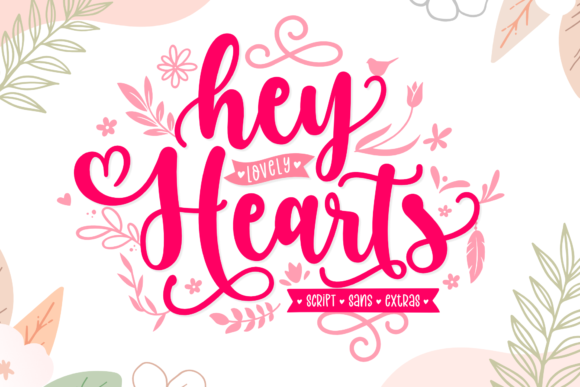
Introducing Hey Lovely Hearts Font, the ultimate script font that will take your creativity to new heights! Created by Holydie Studio, this font family is a delightful duo consisting of a sans serif and handwritten style.
With its warm and romantic vibe, Hey Lovely Hearts is perfect for adding a touch of elegance and playfulness to your designs. Whether you're working on a poster, invitation, or any other project, this font will truly transform your ideas into stunning works of art.
What sets Hey Lovely Hearts apart is its incredible versatility and endless variations. Let your imagination run wild as you explore the different styles and combinations this font has to offer. From bold and expressive to delicate and whimsical, there's a variation for every mood and occasion.
Captivate your audience with the emotional power of this font. Its flowing lines and charming curves evoke feelings of joy, love, and excitement. Your designs will instantly stand out and make a lasting impression on anyone who lays eyes on them.
But Hey Lovely Hearts is more than just a pretty font. It's also packed with functional features that make it a breeze to work with. With its user-friendly interface and easy-to-read characters, you'll have no trouble bringing your design visions to life.